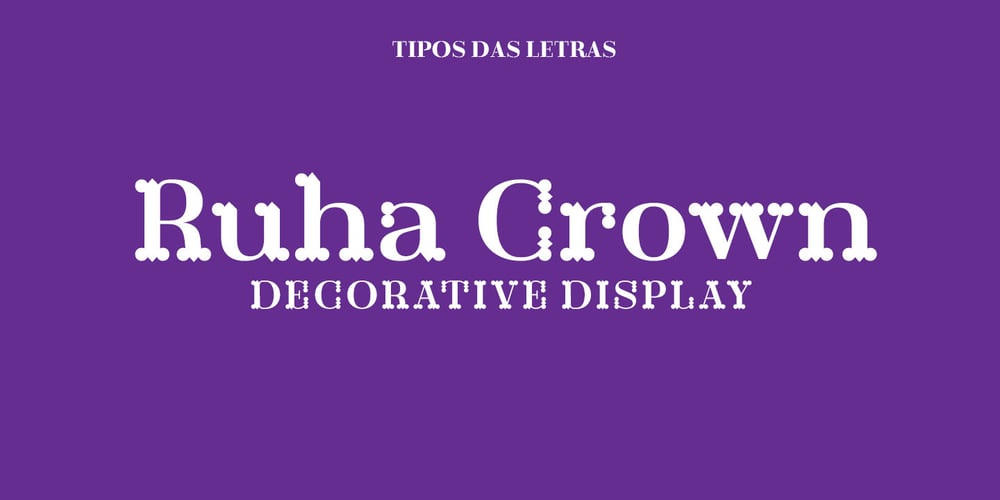
TDL Ruha Crown Font Family was designed by Ricardo Santos, Rúben Dias, Aprígio Morgado, Ricardo Dantas and published by Tipos Das Letras. TDL Ruha Crown contains 2 styles and family package options. TDL Ruha Crown is a decorative, modern and mechanical display typeface and it results from the development of the stencil RUHA. Being the first typeface of the family, sets the basic concepts to be developed further, on each version to come. There is an rigid geometrical connection with the Roman du Roi design approach, since the letterforms are imposed by the constraints of the RUHA ruler. The main typographic proportions are connected with the modern typefaces, like Didot or Bodoni.